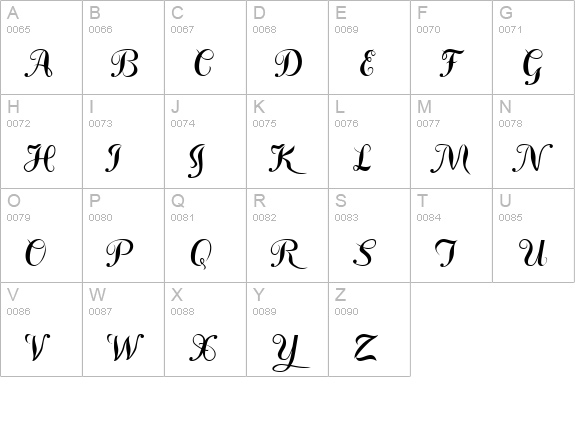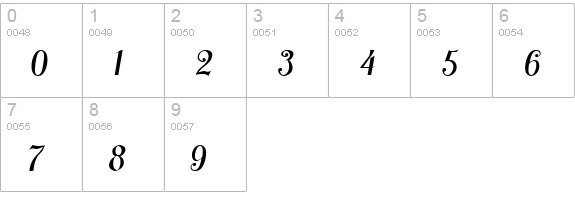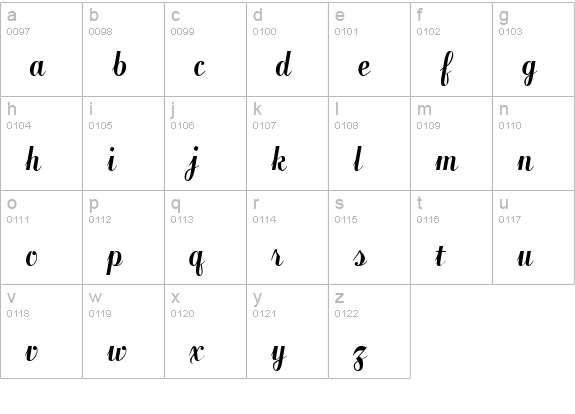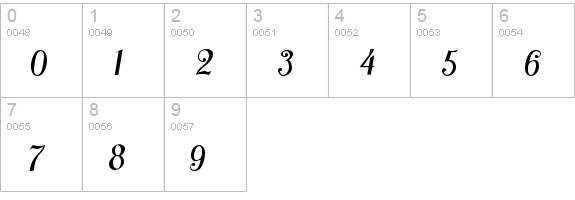
FansiPensleTwo Bold Font Details
FansiPensleTwo Bold is a strong, high-contrast variant in the FansiPensleTwo typeface family \xE2\x80\x94 well suited to headlines, attention-grabbing titles, and strong calls-to-action.
Introducing FansiPensleTwo Bold font, a striking and eye-catching typeface that exudes confidence and boldness. This unique font is perfect for making a statement in any design project, whether it's for posters, logos, headlines, or branding materials. FansiPensleTwo Bold features strong, thick strokes and a modern aesthetic that commands attention. The best part? FansiPensleTwo Bold is available for free download at FontsMarket.com, making it easily accessible for all designers and creatives looking to elevate their work with a touch of sophistication and flair. Don't miss out on this opportunity to add a touch of boldness to your projects with FansiPensleTwo Bold font. Download it today and let your creativity shine!